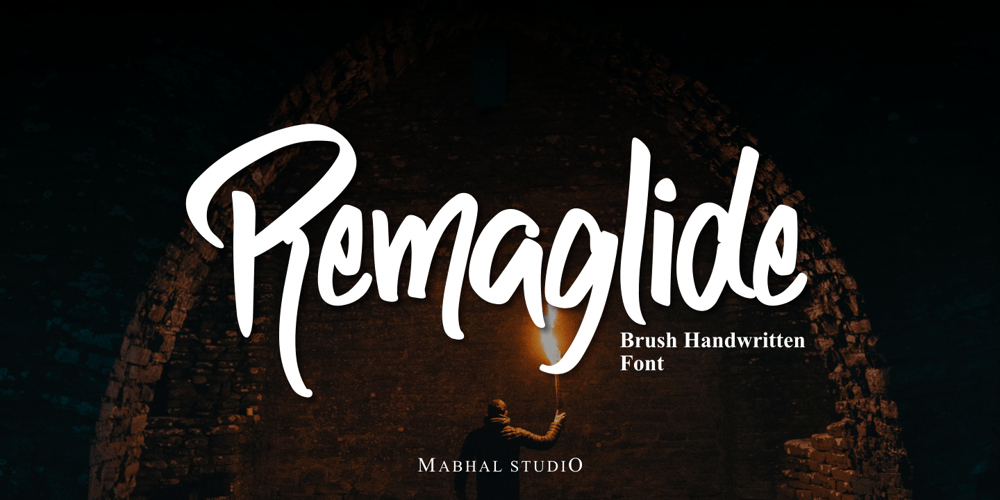
Remaglide
Remaglide font
Remaglide Font Family was designed by Abdullah Mabhal and published by Mabhal Studio. Remaglide contains 1 styles and family package options. Remaglide is a Brush Handwritten Font. It has several swash and several alternative styles that can be used as needed.Remaglide will do great on invitations, in quotes, ads, and more.